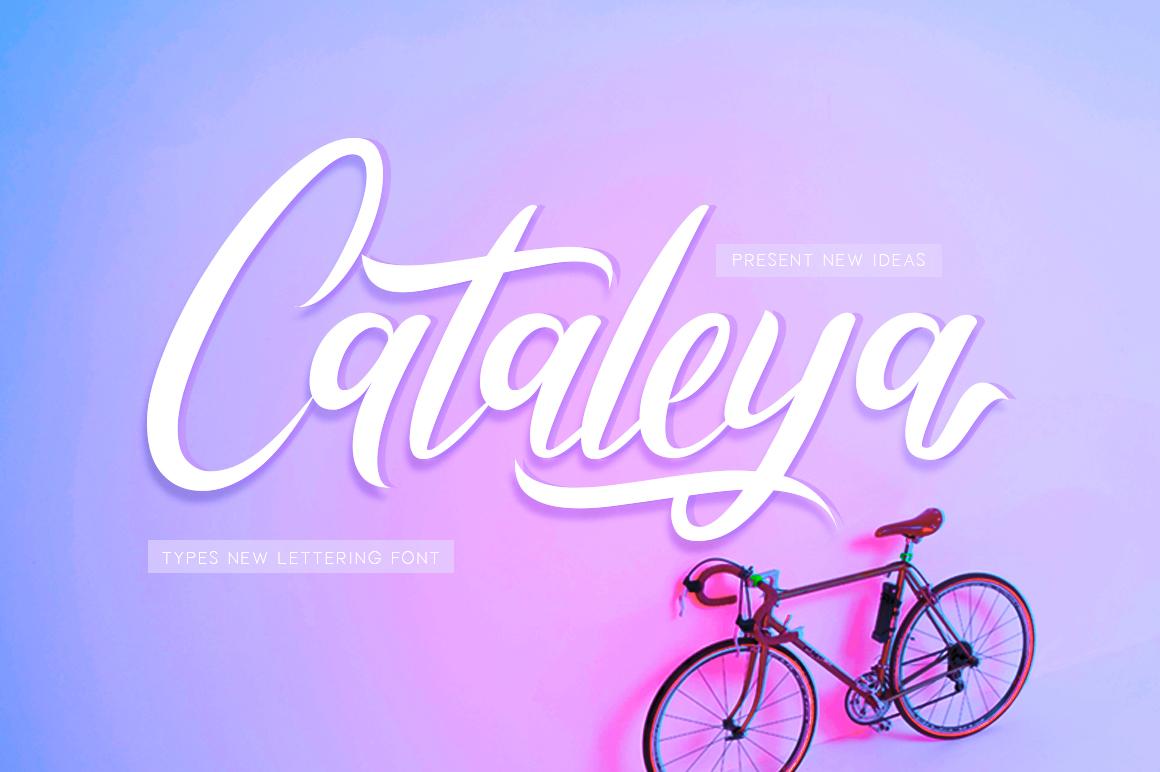
Cataleya Font Description
The Cataleya is a modern script font. Every single letter has been created carefully to give your designs a striking style. This modern script is perfect for posters, weddings, greeting cards, invitations, quotes, and more!